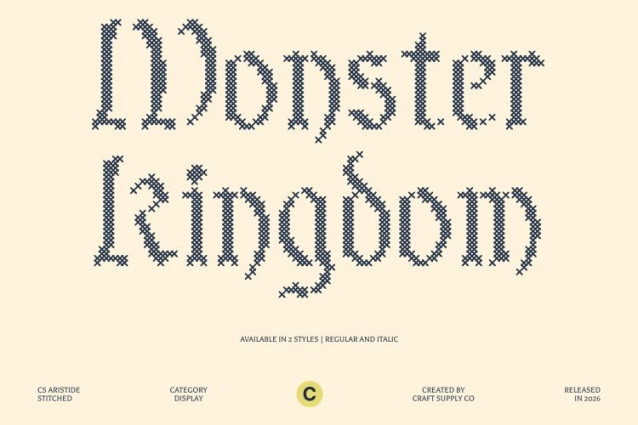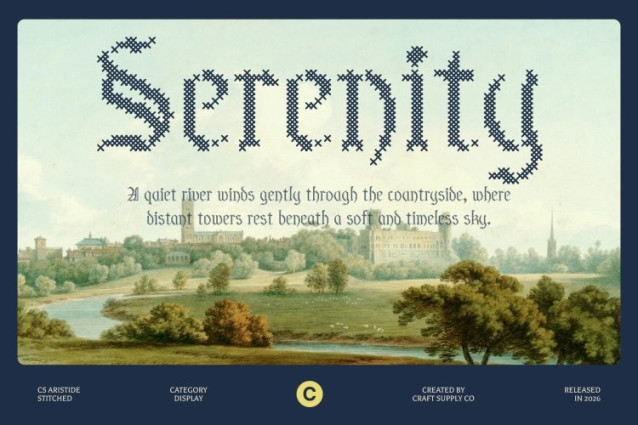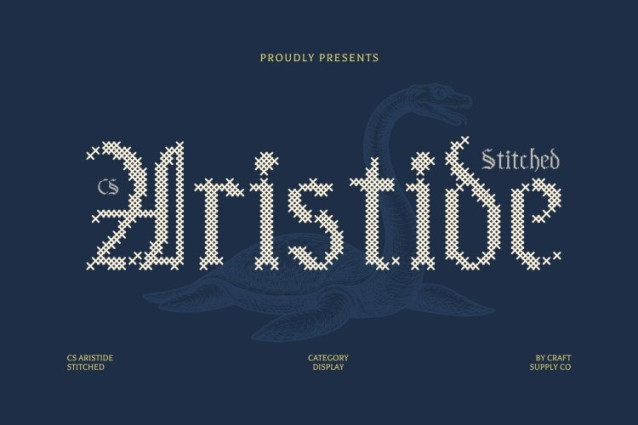
CS Aristide Stitched Font
CS Aristide Stitched Font – This is a bold Blackletter display font that fuses the fierce spirit of Gothic calligraphy with contemporary minimalism. It reimagines the sharp drama of traditional Blackletter through balanced curves, refined proportions, and thoughtful spacing, resulting in a typeface that feels both expressive and modern. Enhanced with a stitched style inspired by thread sewn or embroidered on fabric, this version introduces a handcrafted warmth that adds texture and personality to its striking structure.
Structured Forms with Embossed Stitch Detail
While preserving the pointed strength and ornamental intensity of historic Blackletter, this font adopts smoother outlines and more open forms for improved readability. A distinctive cross-shaped stitch pattern creates an embossed and structured texture across each letterform, giving the font a tactile, fabric-like appearance.
Classic Gothic Drama with Contemporary Elegance
The visual strength of this font lies in its seamless balance between historical influence and modern refinement. Inspired by Gothic manuscripts and signage yet designed for contemporary layouts, it offers a polished yet powerful typographic presence that feels both timeless and fresh.
Perfect for Bold, Creative, and Statement Designs
This is ideal for music visuals, fashion branding, posters, editorial headlines, packaging, clothing logos, and experimental creative projects. Its combination of modern Gothic structure and stitched texture creates a distinctive identity that stands out with confidence, sophistication, and handcrafted charm.